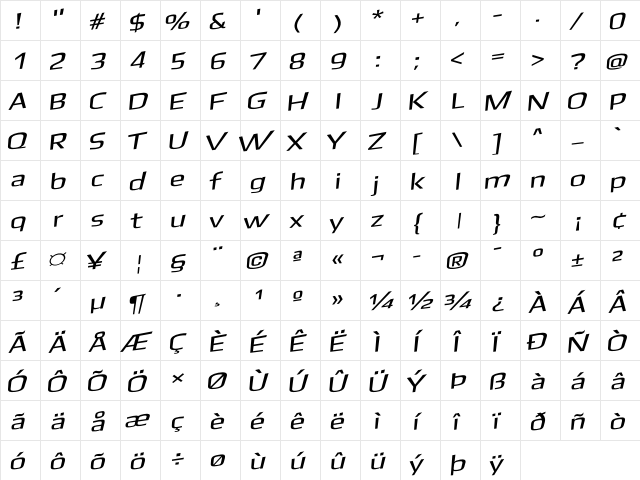
Gamestation Warped Italic
| Foundry | Jonas Hecksher, Playtype-types AS |
| Designer | Jonas Hecksher |
Design Context for Gamestation Warped Typeface
Gamestation Warped is a composed and adaptable typeface that performs quietly and consistently across a wide range of design contexts. The dynamic lean of this cut emphasises speed and emphasis in any layout.
Pro Tip: Use Gamestation Warped for emphasis, pull quotes, and subheadings where its slanted energy can add rhythm to the layout.